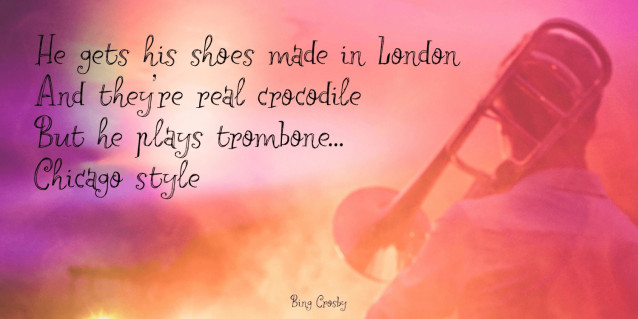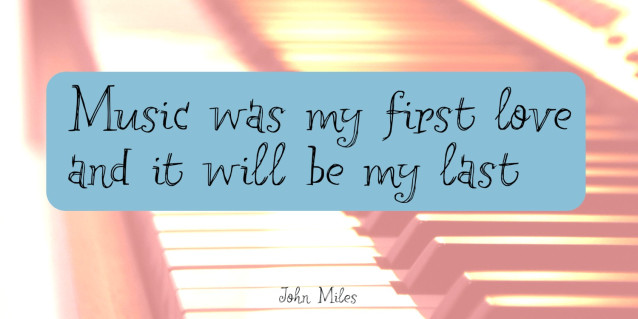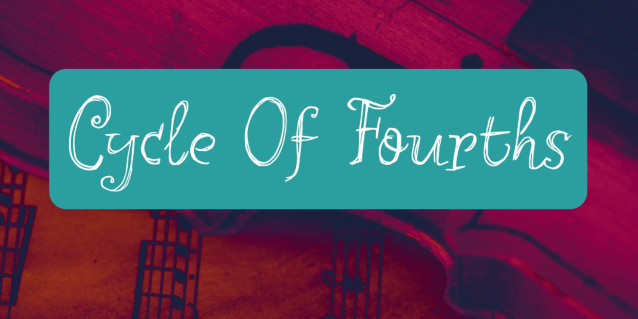
Cycle Of Fourths Font
Cycle Of Fourths is an elegant, handmade font. A little curly, a little old-fashioned maybe, but also out of the ordinary and unique.